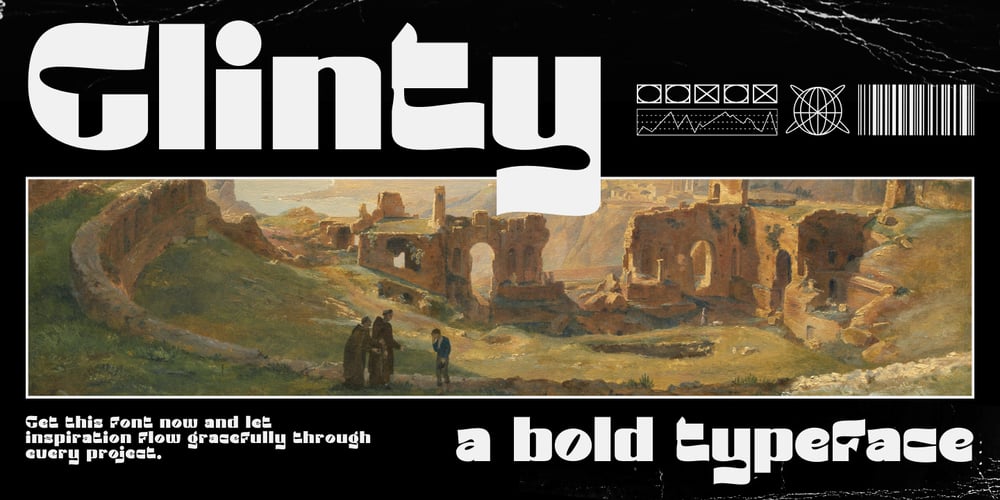
Glinty
Glinty font
Glinty Font Family was designed by Dian Haniffan Hadi and published by Beary. Glinty contains 1 styles and family package options. GLINTY is a display serif font featuring vibrant, playful shapes. It’s ideal for adding a touch of whimsy to your projects.Our fonts perform best in design software that supports advanced OpenType features such as special characters.